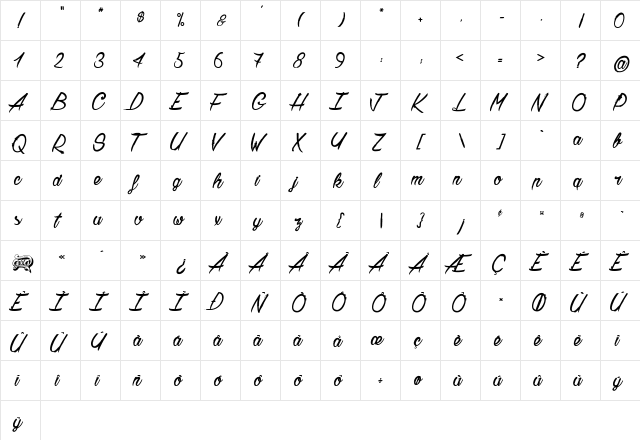
Chardons Brush Regular
Design Context for Chardons Brush Typeface
Chardons Brush brings a calligraphic fluidity to the page — its connecting strokes and expressive curves give it an unmistakably human quality.
Font Pairing: Combine Chardons Brush with a simple geometric sans for maximum contrast — the tension between flowing curves and clean structure is a classic typographic pairing.
Pro Tip: Use Chardons Brush for short runs of text — names, titles, or taglines. Extended body copy in script faces tires the eye quickly.